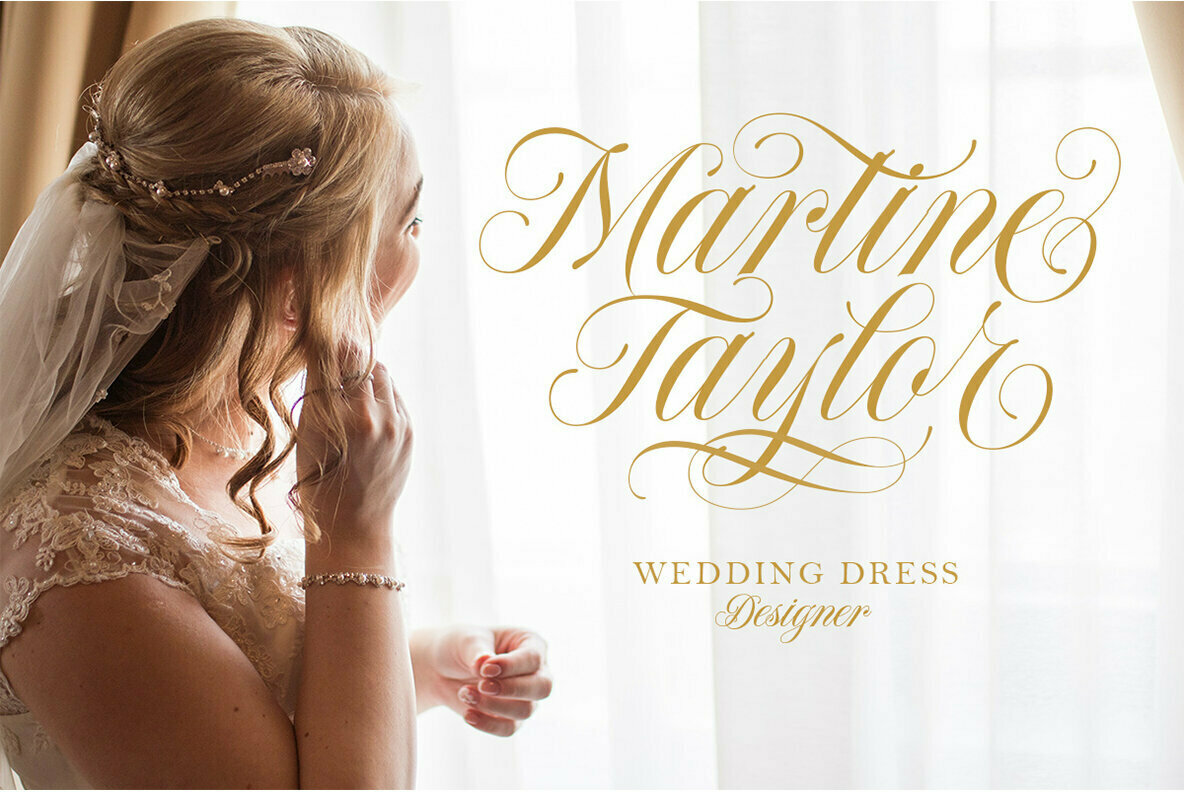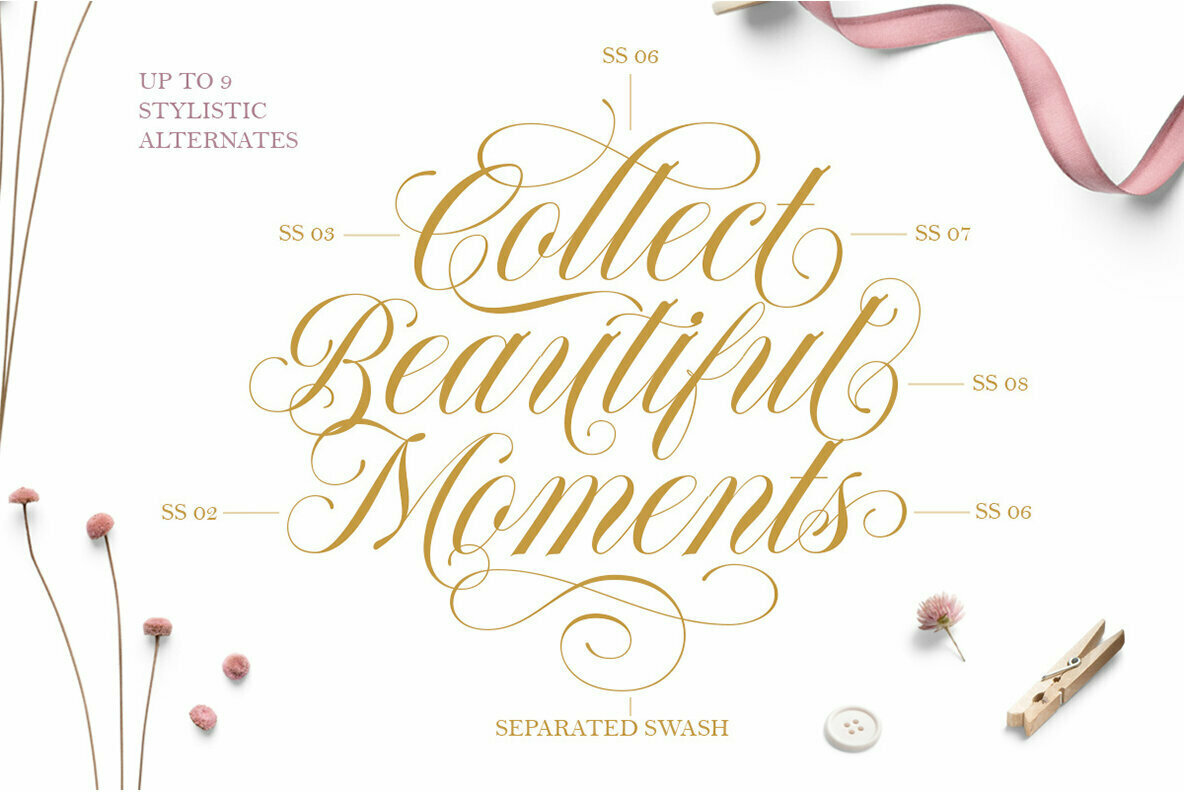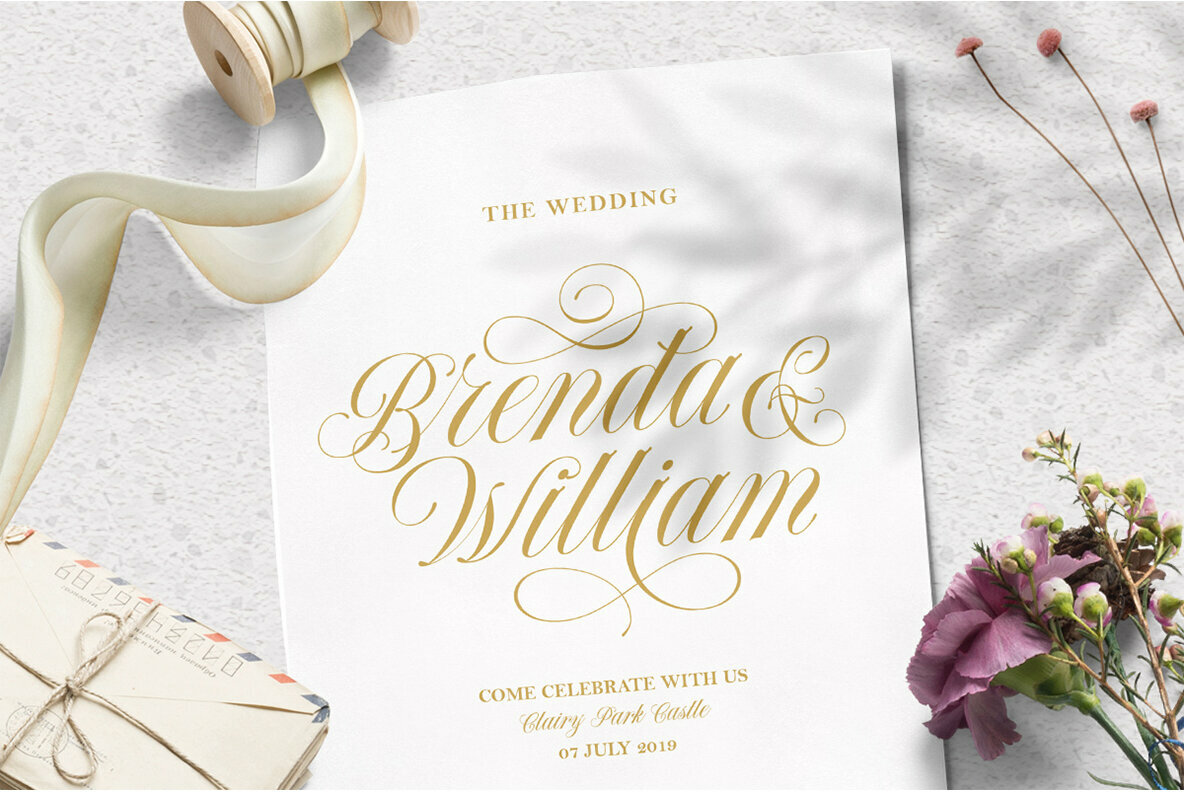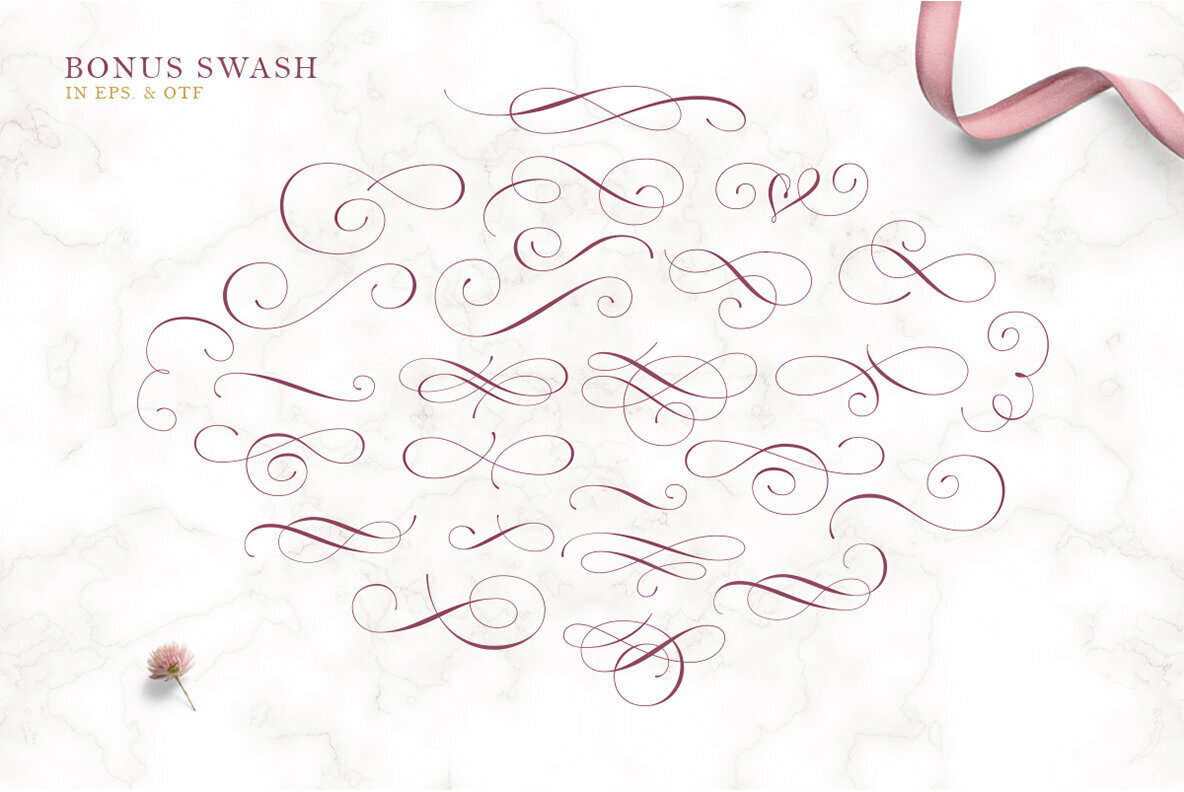
Forth Smith Font
Welcome to the world of Forthsmith Classic, a distinguished script typeface by Letterhend Studio. This font strikes a perfect balance between beauty and class, offering an array of swashes that enable effortless creation of sophisticated lettering. With its extensive stylistic set alternates, Forthsmith Classic allows for versatile customization, perfect for those who value individuality in their design projects. Forthsmith Classic is a superb choice for professionals seeking a typeface that excels in both formal and creative applications. It shines in logos, invitations, magazines, books, and greeting cards, as well as fashion, makeup, and advertising projects. Its adaptability makes it a favorite for various formal contexts, where elegance is paramount. To fully utilize Forthsmith Classic's capabilities, we recommend using software that supports OpenType features and glyph panels, such as Adobe applications or Corel Draw, ensuring a seamless design experience.Forthsmith Classic: Elegant Script Typeface with Versatile Swashes